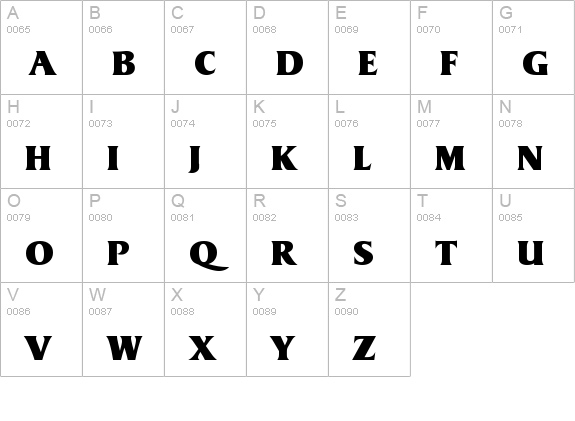
SydneySerial-Heavy-Regular Font Details
SydneySerial-Heavy-Regular is a heavy, high-impact variant in the SydneySerial typeface family \xE2\x80\x94 well suited to high-impact headlines, posters, and display advertising.
SydneySerial-Heavy-Regular font is a bold and impactful typeface that exudes strength and authority. Its thick, sturdy letterforms make a strong statement, making it ideal for headlines, titles, and branding projects. This versatile font is perfect for creating eye-catching designs that demand attention. What's more, SydneySerial-Heavy-Regular font is available for free download at FontsMarket.com. This means you can easily access this powerful typeface and use it in your projects without any cost. Whether you're working on print materials, digital designs, or any other creative endeavor, SydneySerial-Heavy-Regular font will help you make a bold impact with its commanding presence. Download it today and elevate your design work with this impressive and freely available font.